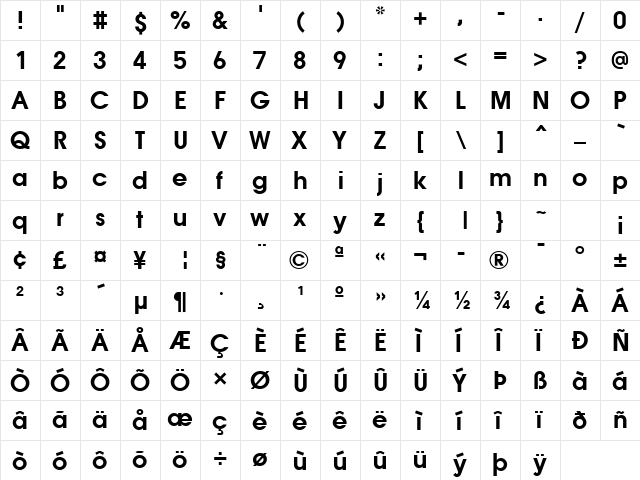
Atlanta Demi
Design Context for Atlanta Typeface
Atlanta takes a measured approach to typography — its balanced proportions and neutral character make it a reliable workhorse for both digital and print work.